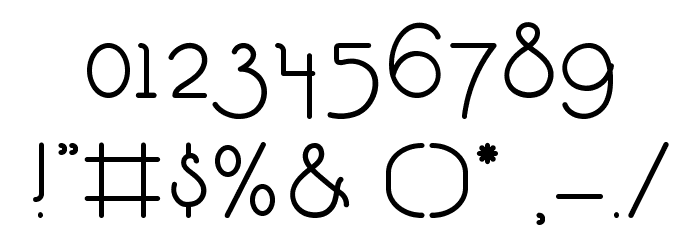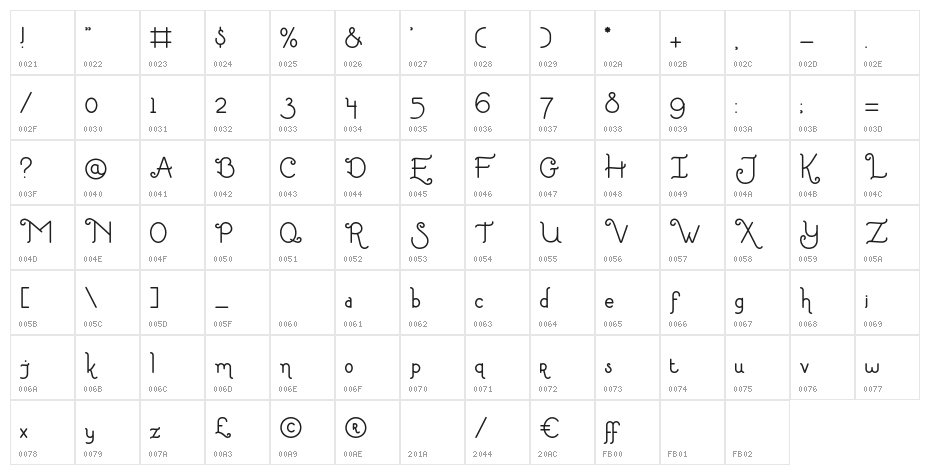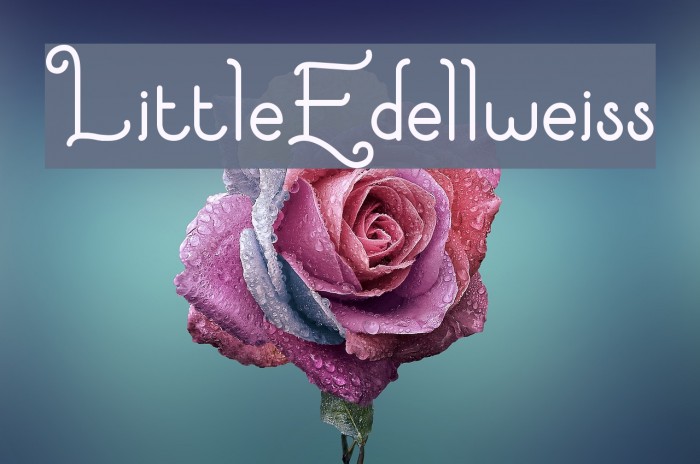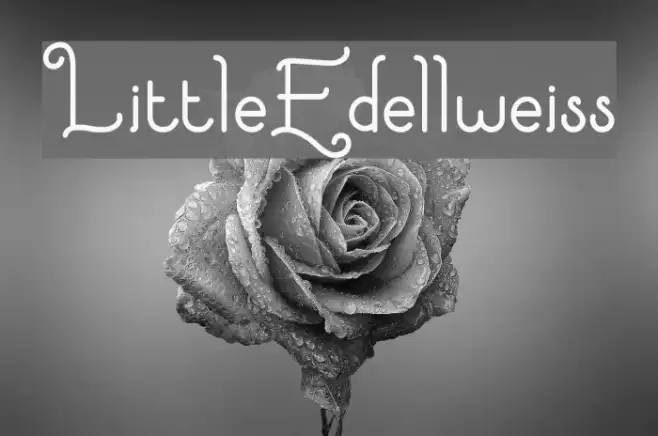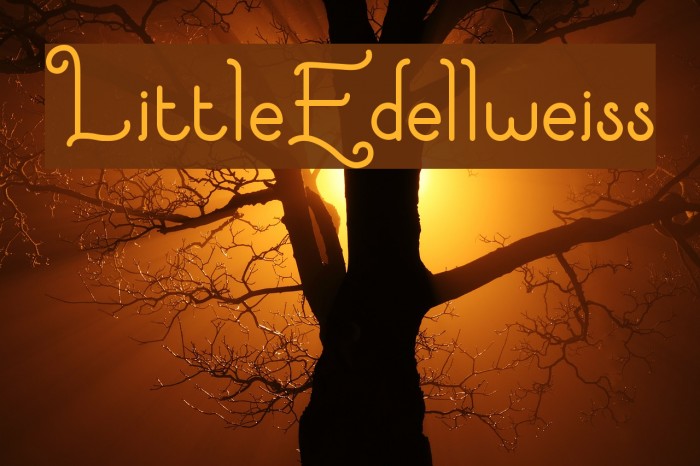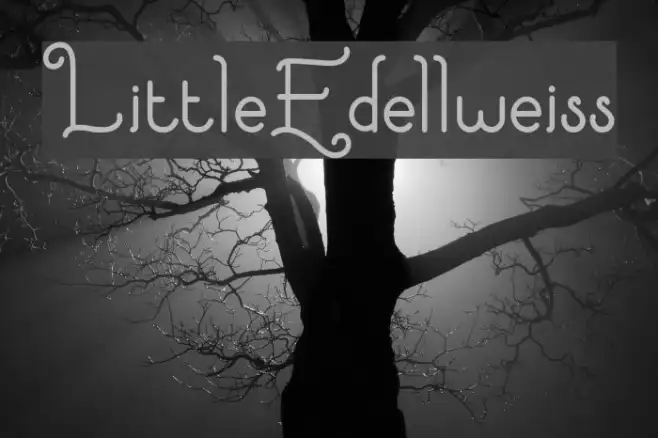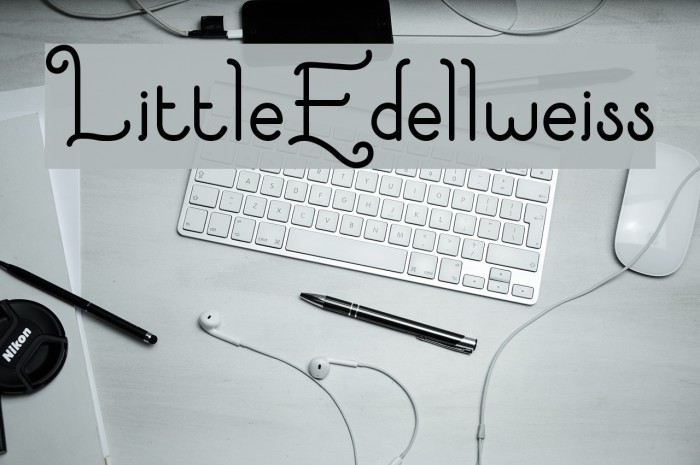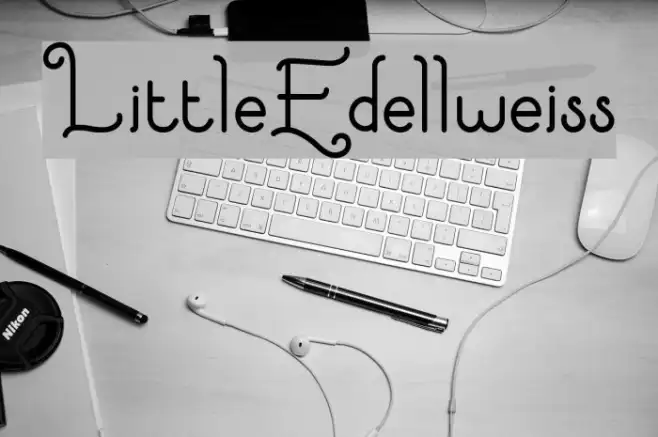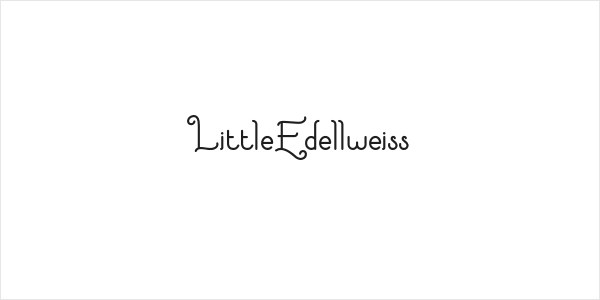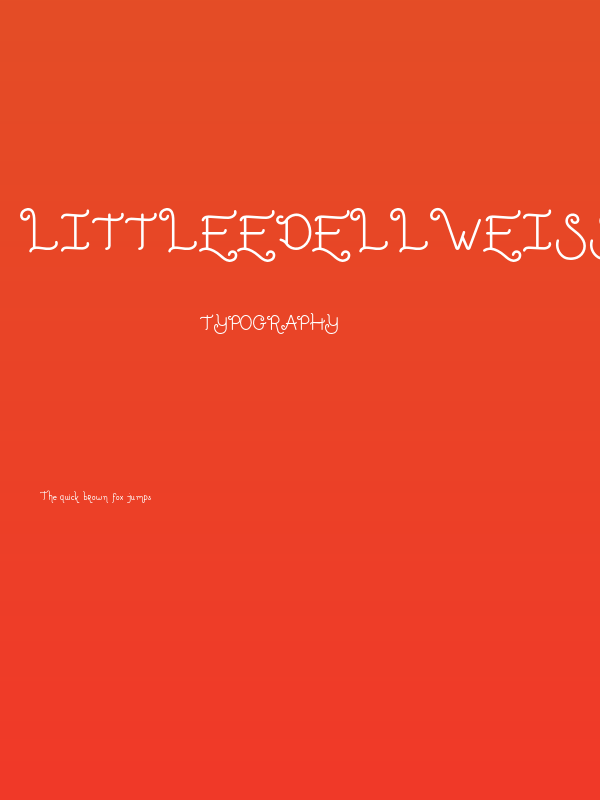
LittleEdellweiss Font
LittleEdellweiss Description
This font features a whimsical and playful design, characterized by its curly and decorative elements. The uppercase letters have a unique flair with swirls and loops, giving them a lively appearance. The lowercase letters maintain a consistent style, with some characters incorporating subtle curls. The numerals are clear and easy to read, while the special characters blend seamlessly with the overall aesthetic. This font's distinct style makes it suitable for creative and artistic projects, adding a touch of fun and elegance.
| Use Case | Logos, Posters, Creative projects |
| Proposed Projects | Ideal for greeting cards, children's books, playful branding, and artistic posters. |